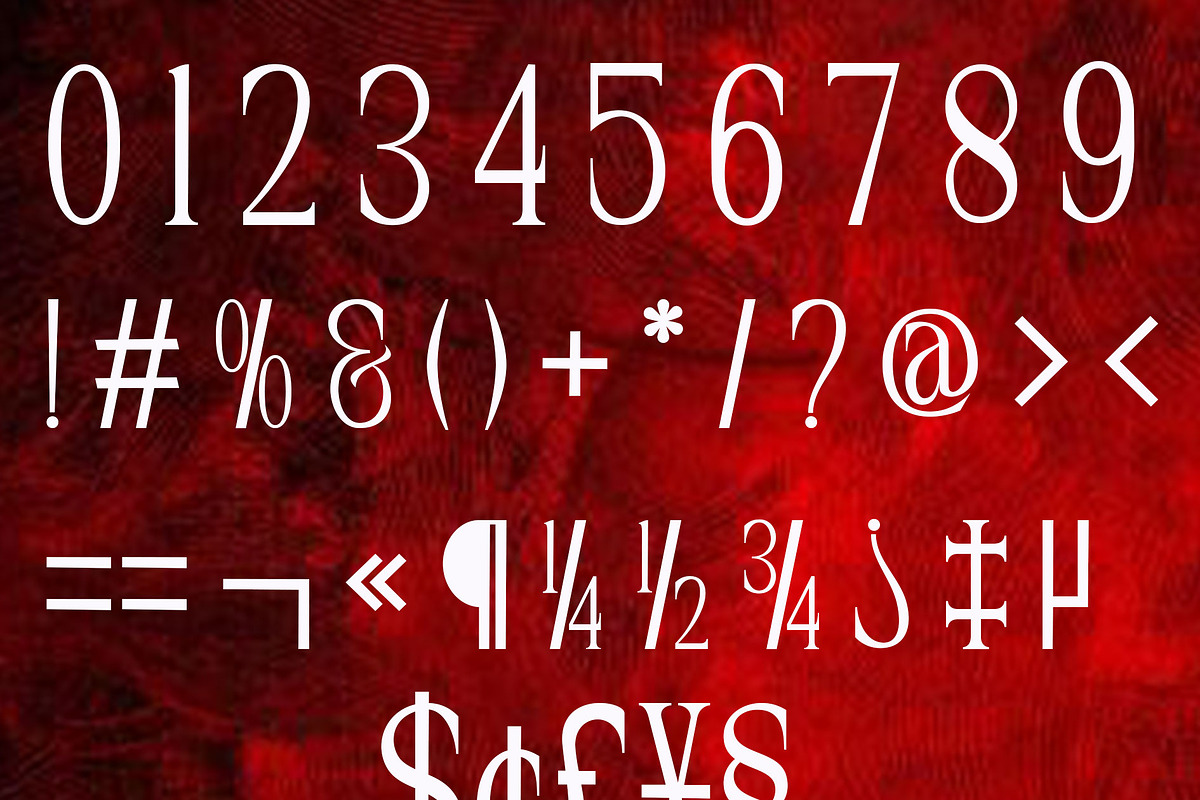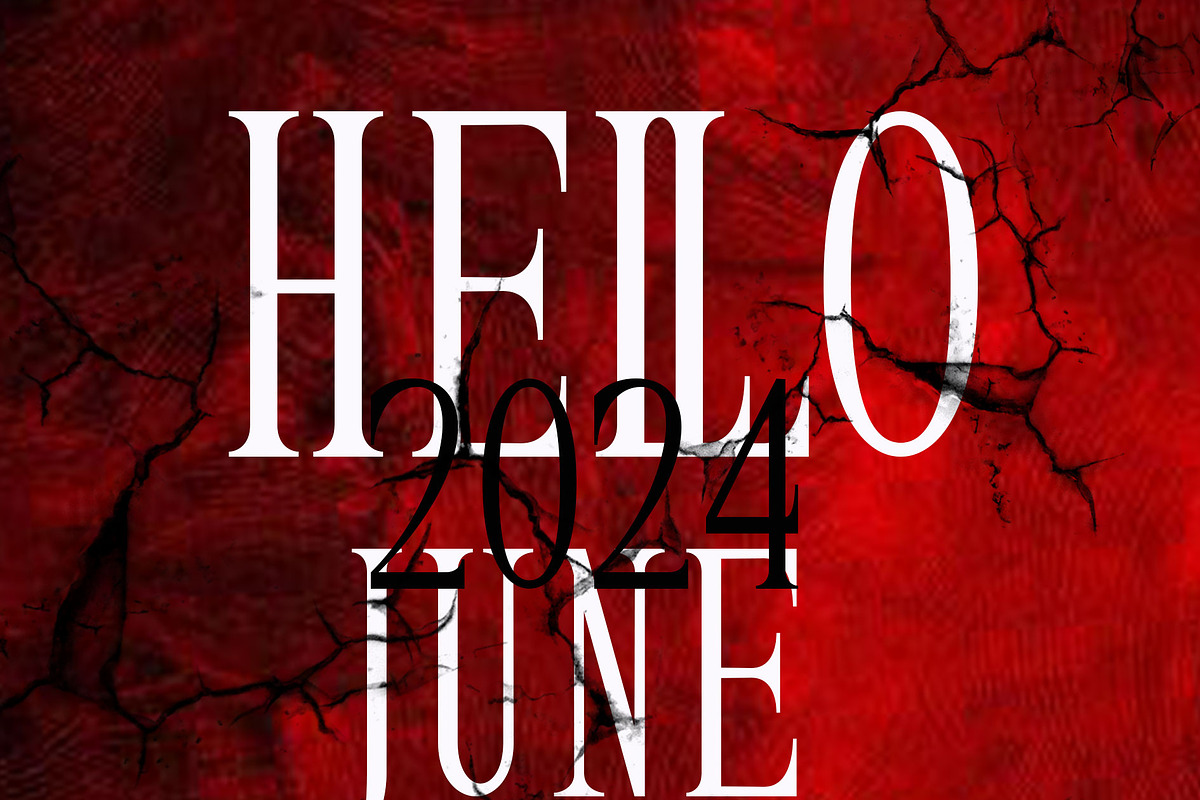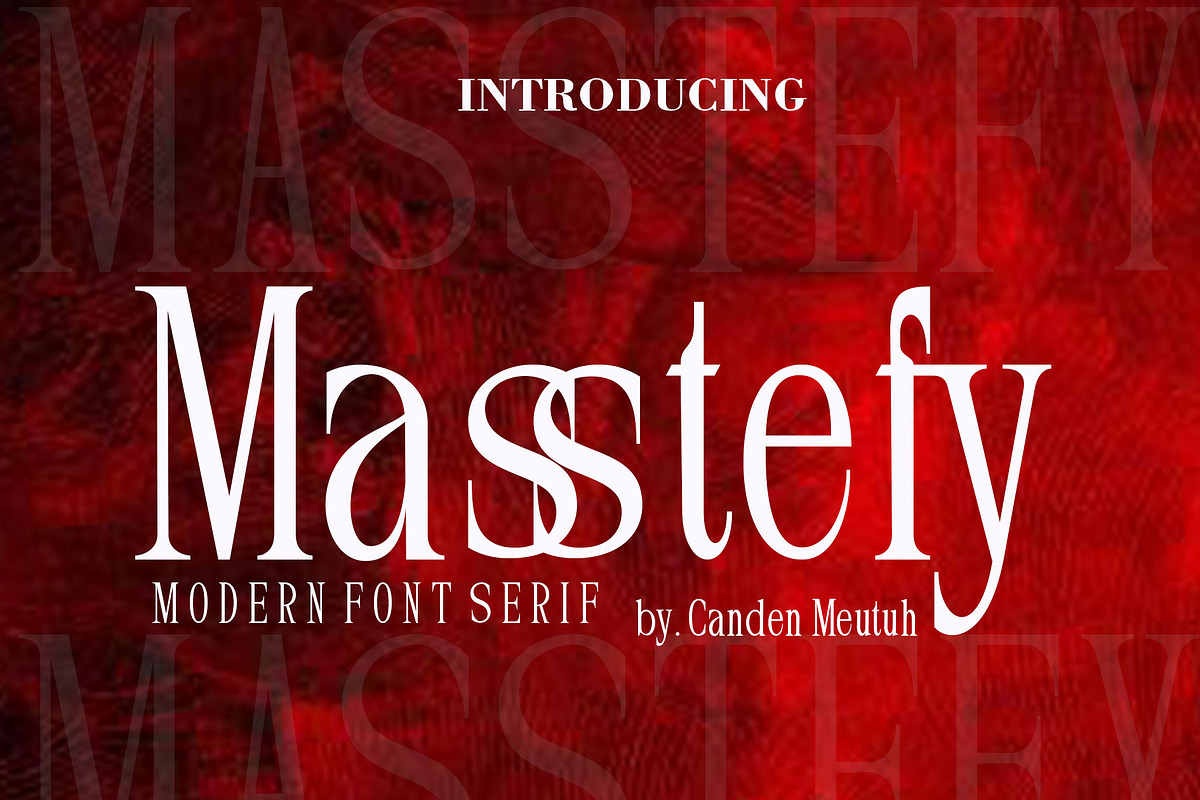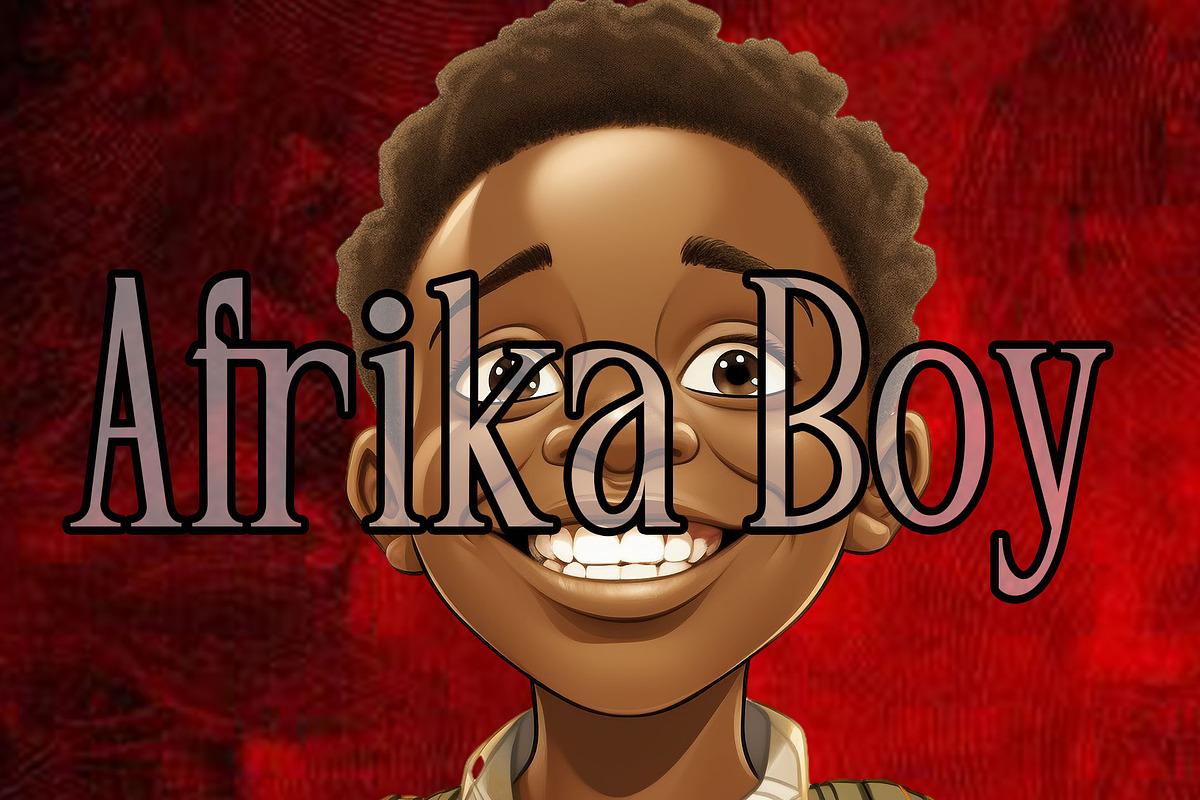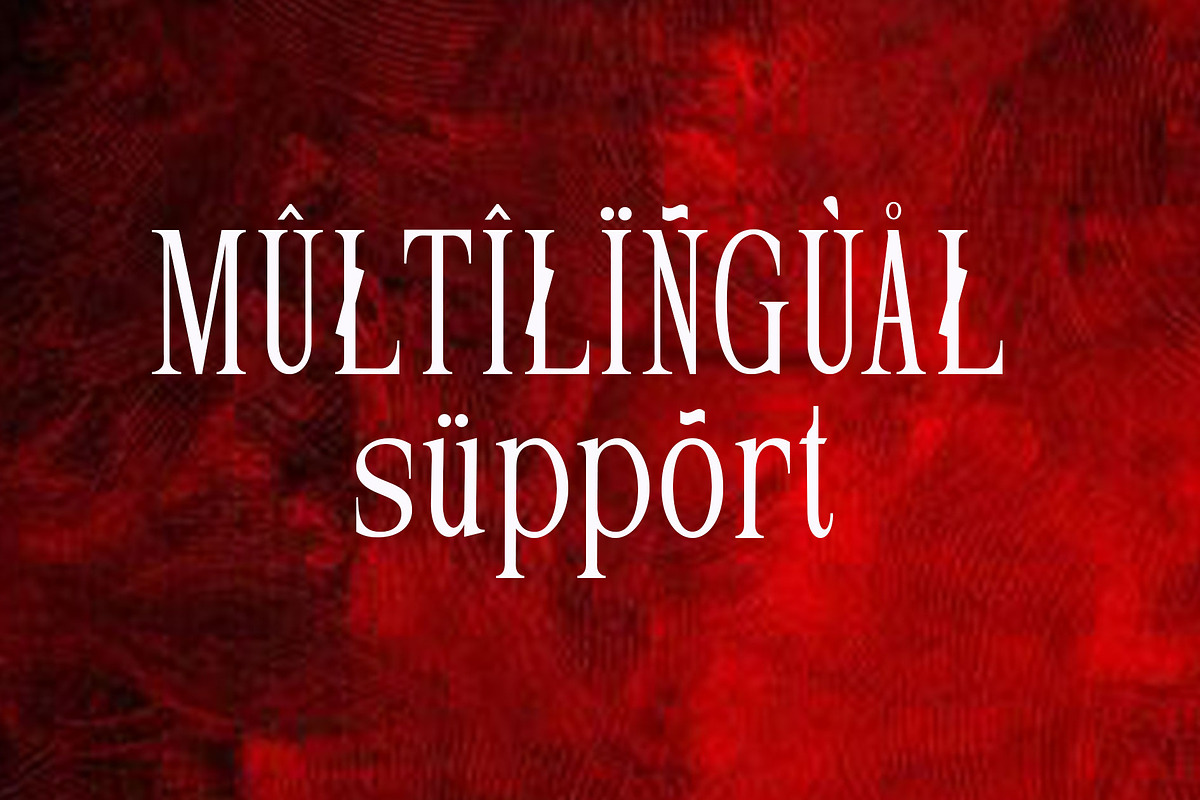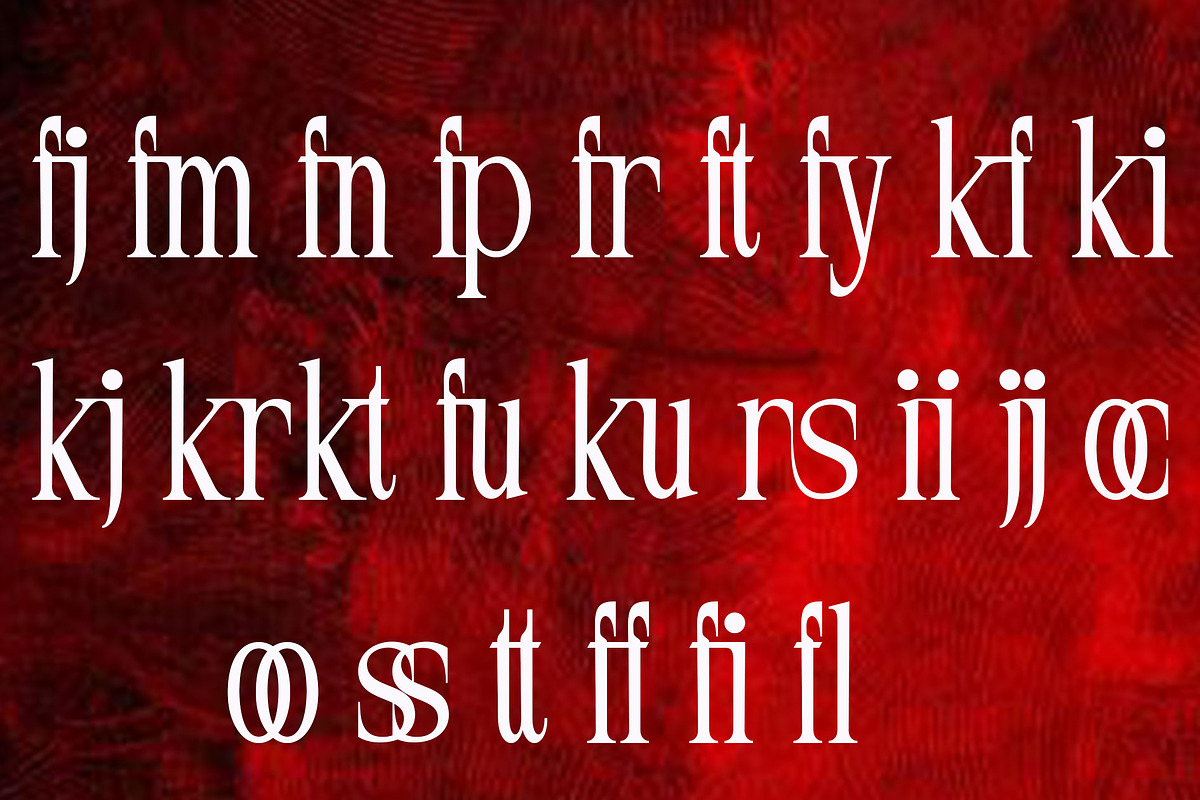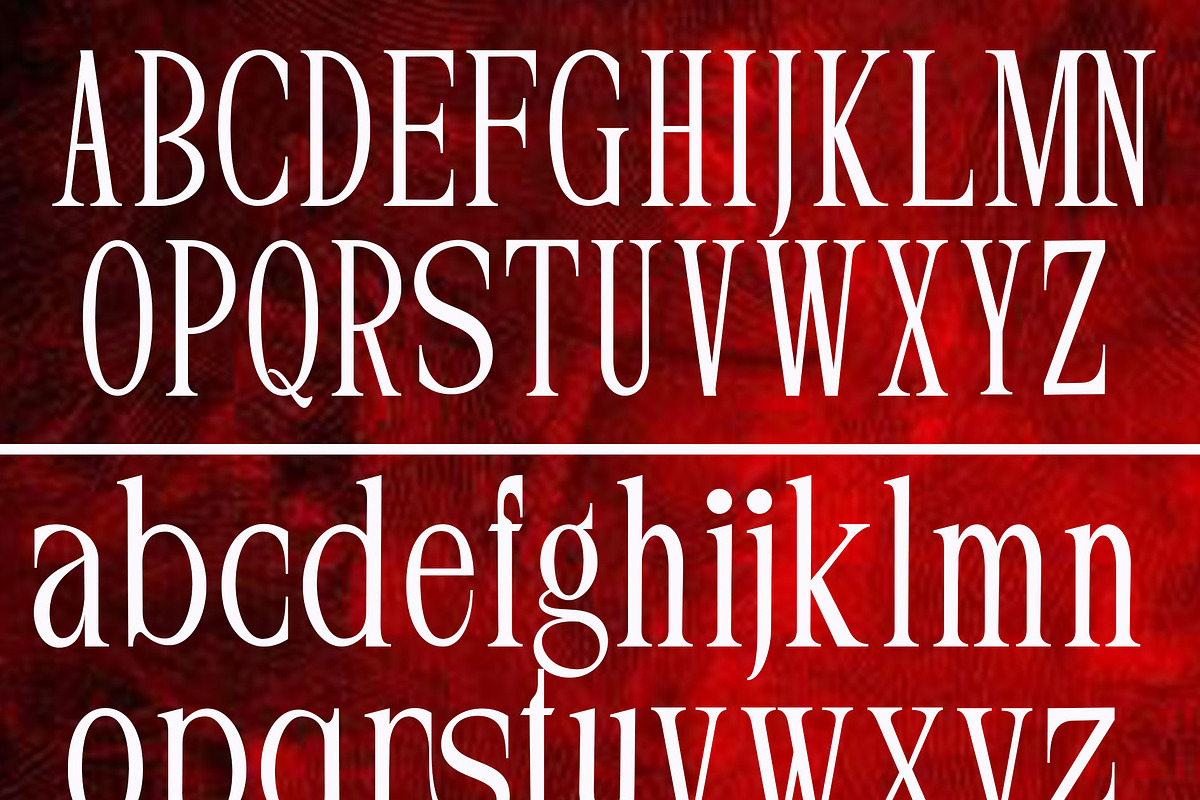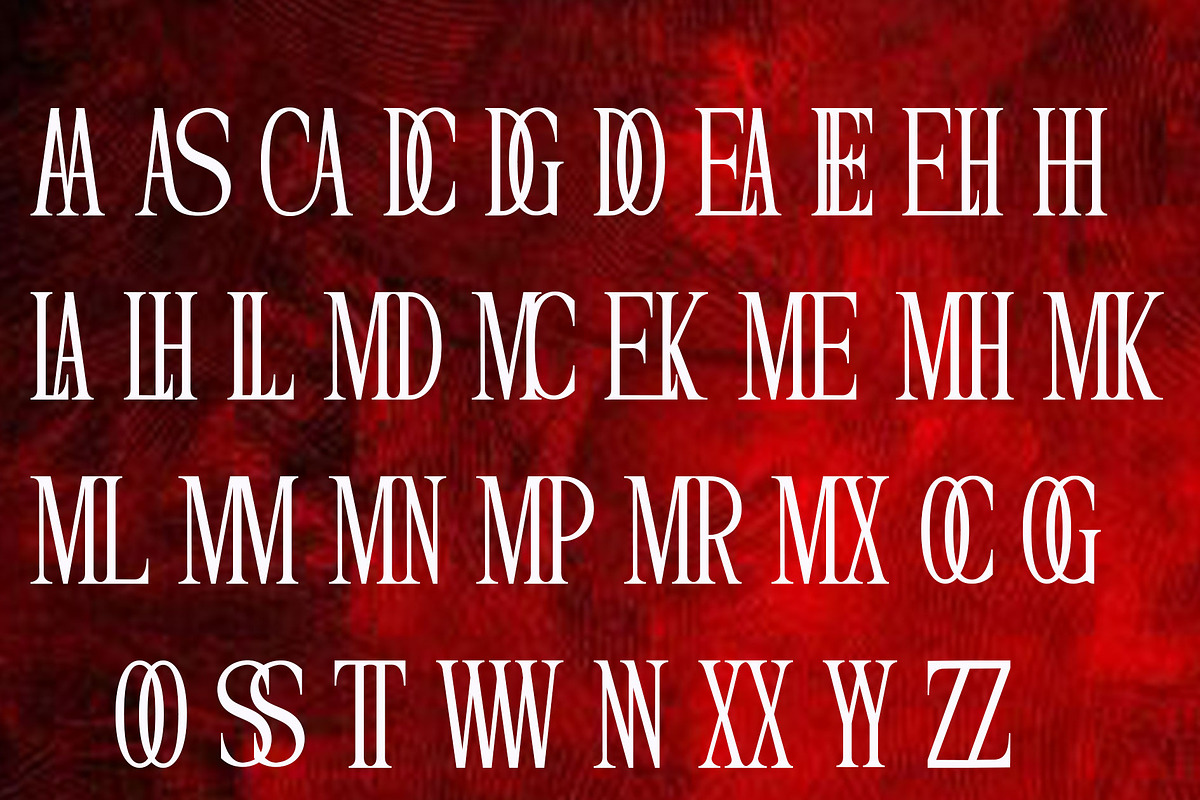
. Masstefy Modern Font
. Masstefy is a simple, minimalist and Modern font. It can be easily adapted to a very large range of projects, such as advertising, titles, blogs, logos, branding, invitations, business cards and more! So add it to your creative ideas and watch how it makes it stand out! This font is equipped with a file. OTF, TTF, WOFF and are also used in various languages. you will not be disappointed with the results.